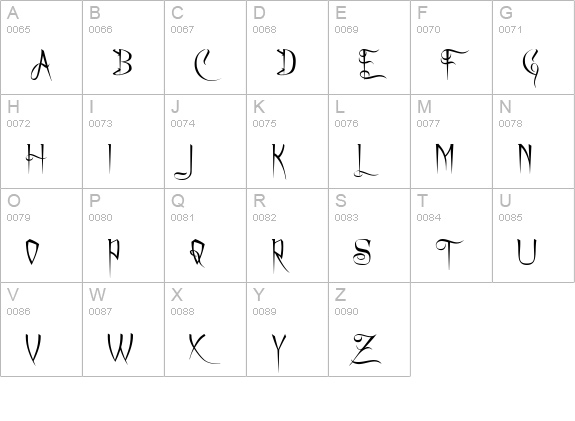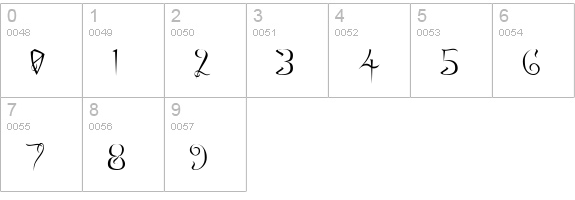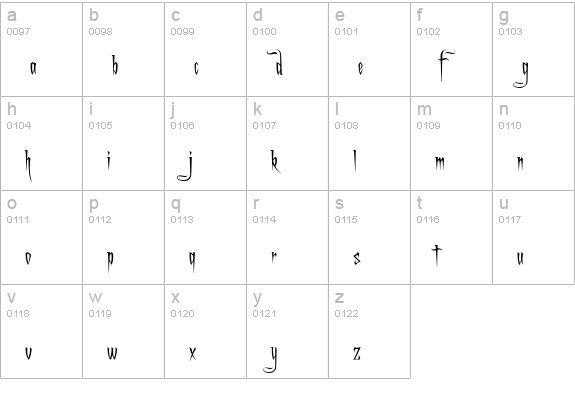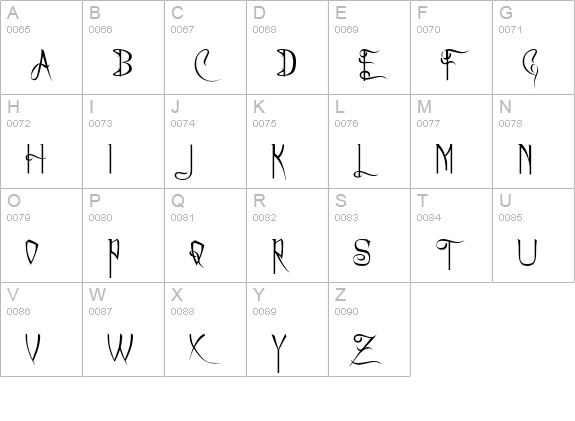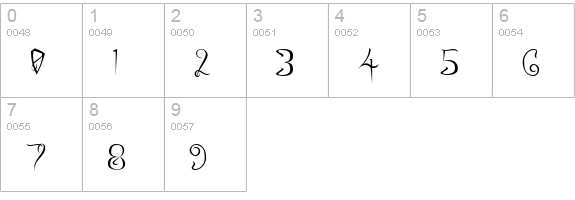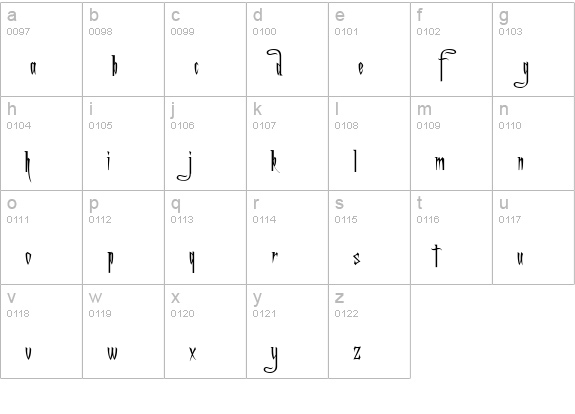
Introducing Charming Font, a delightful and elegant typeface that exudes a sense of charm and sophistication. This beautiful font features stylish curves and intricate details, making it perfect for adding a touch of class to any design project. Whether you're creating invitations, branding materials, or just looking to add a touch of elegance to your work, Charming Font is sure to impress. And the best part? Charming Font is available for free download at FontsMarket.com! This means you can easily access this stunning font and incorporate it into your projects without any hassle. Don't miss out on the opportunity to enhance your designs with the timeless beauty of Charming Font. Download it today and let your creativity shine!